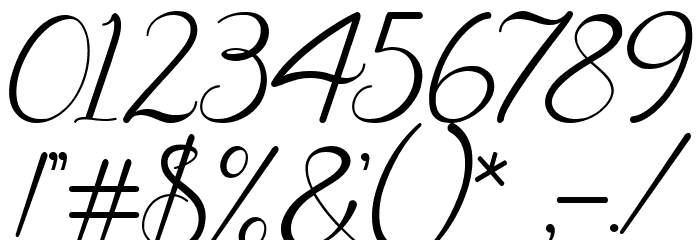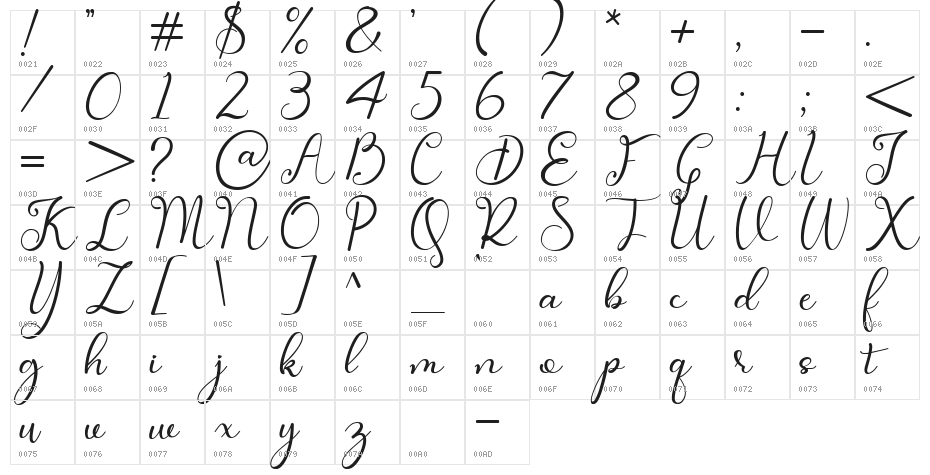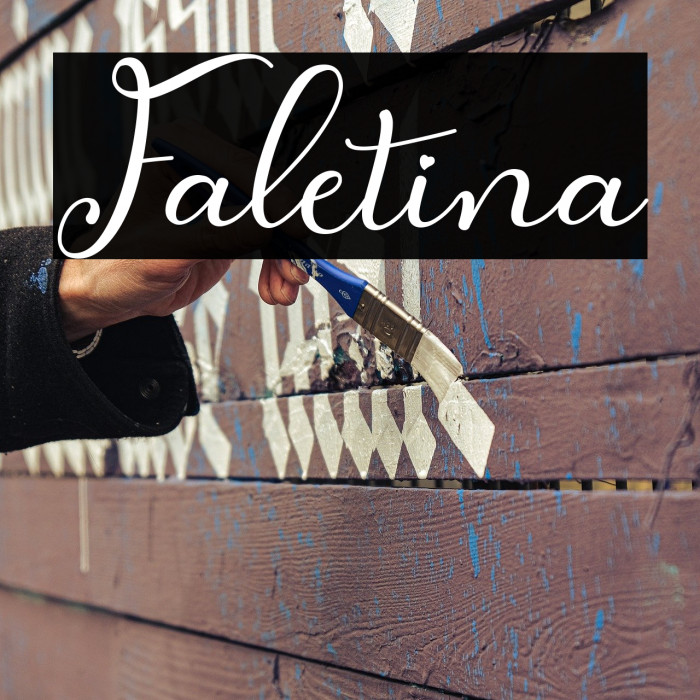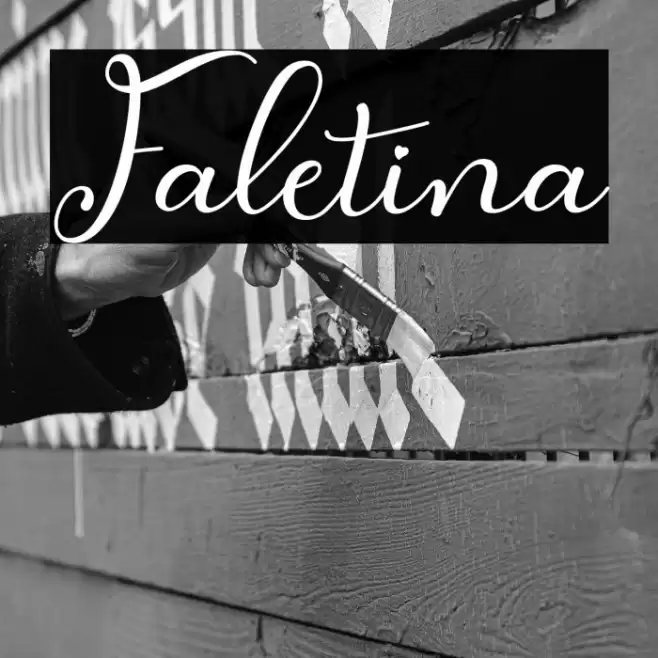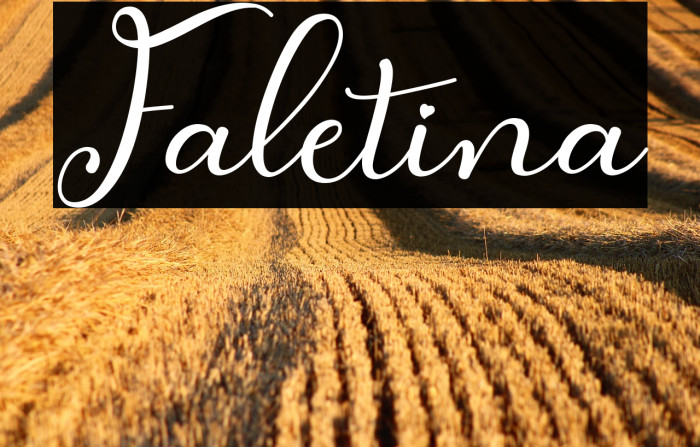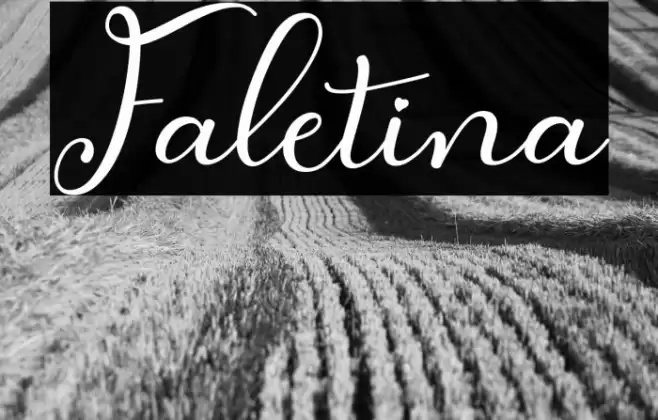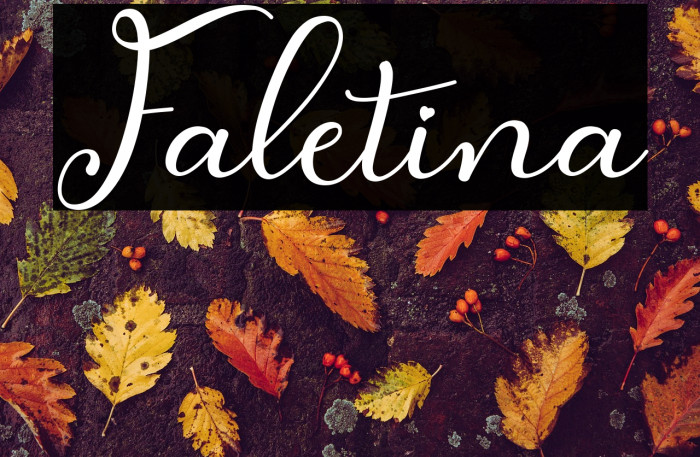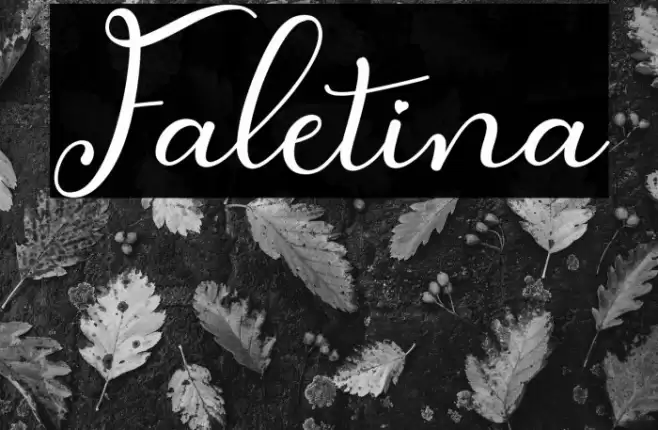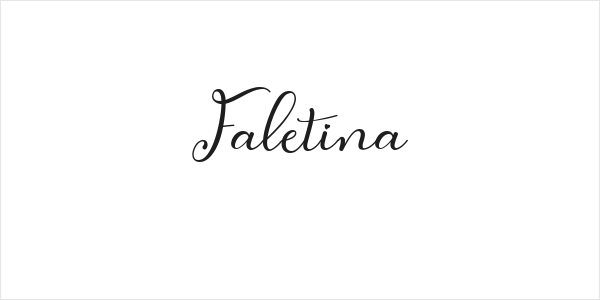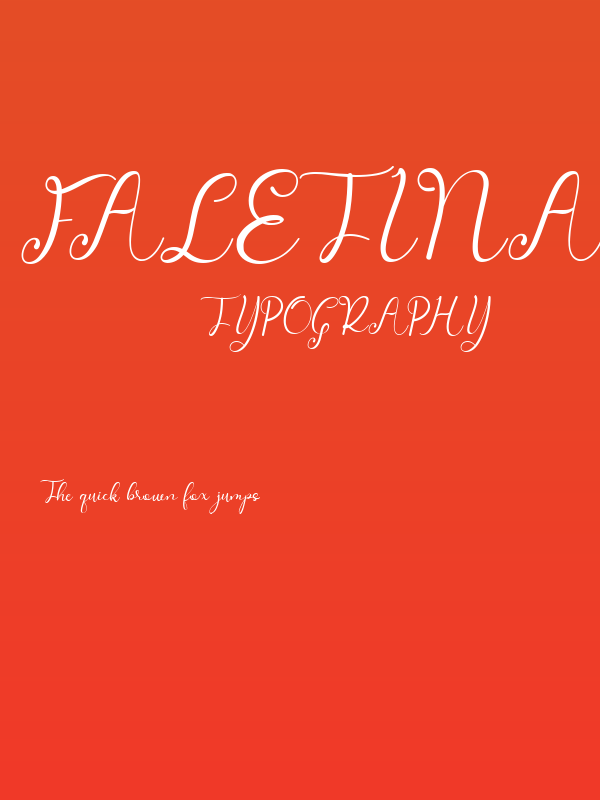
Faletina Font
Faletina Description
This elegant script font features flowing, cursive letters with a graceful and sophisticated appearance. The uppercase letters are characterized by their sweeping curves and loops, creating a sense of fluidity and movement. The lowercase letters maintain a consistent style, with smooth connections between each character, enhancing readability while preserving the decorative nature of the script. The numerals are designed to complement the letters, with similar curves and a balanced structure. Special characters are thoughtfully integrated, maintaining the overall aesthetic of the font. This font exudes a sense of elegance and formality, making it suitable for a variety of creative applications.
| Use Case | Logos, Invitations, Decorative Text |
| Proposed Projects | Ideal for wedding invitations, elegant branding, greeting cards, and decorative signage. |